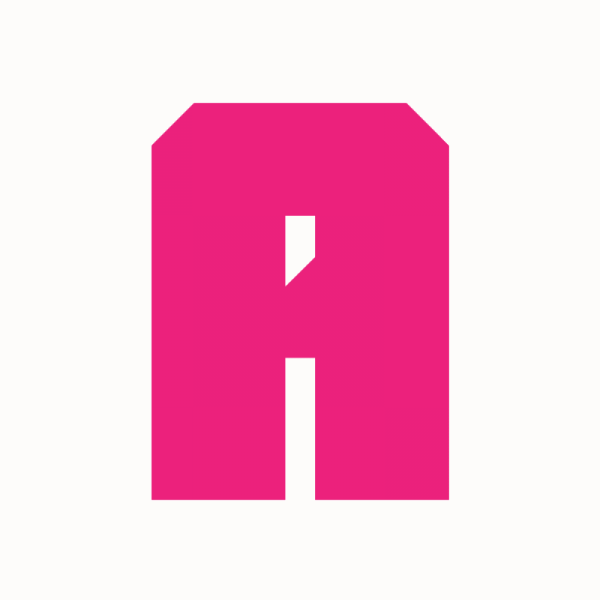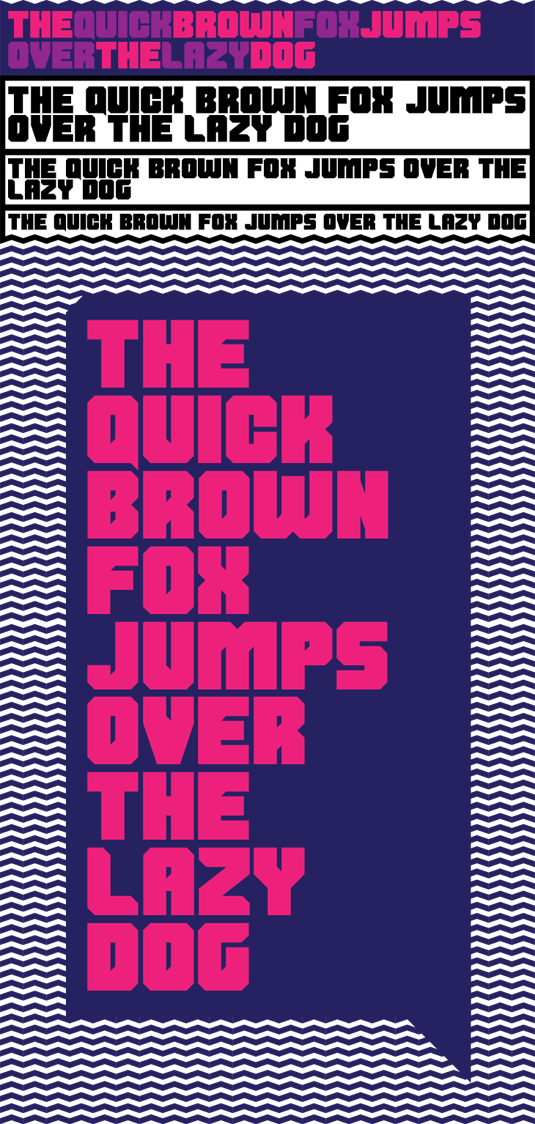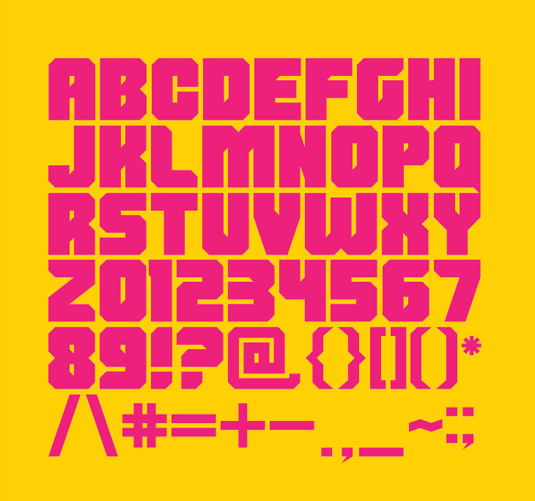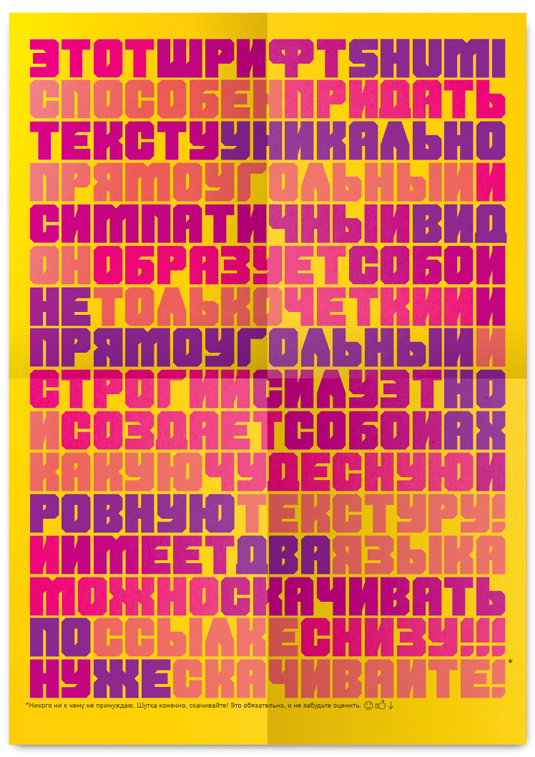
Font of the day: Shumi
Each day of the week we showcase our favourite fonts – today it's Shumi by Ivan Shumikhin.
Shumi by Ivan Shumikhin
Today's showcased typeface is Shumi, created by Ivan Shumikhin. A bold geometric typeface, Shumi is named after its creator and is ideal for headlines, posters and anything that is designed to have an impact!